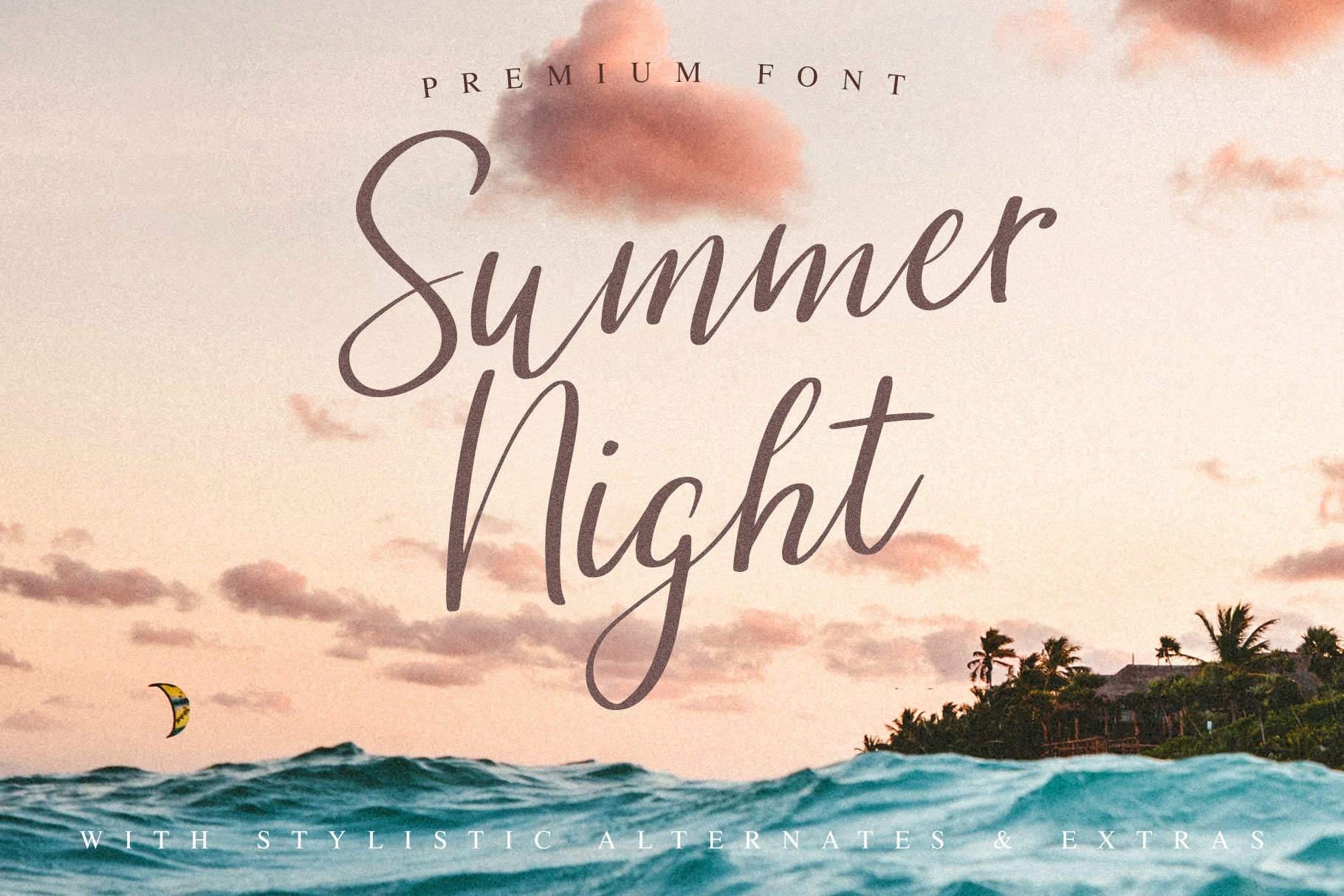
Summer Night Font
Summer Night is a modern handmade script font.It is perfect for your flyers, branding, packaging, social media posts or logos - for everything modern with a bit of handmade touch.
This pack includes 2 full stylistic sets and some handy extras - swashes, underlines, circles and arrows.